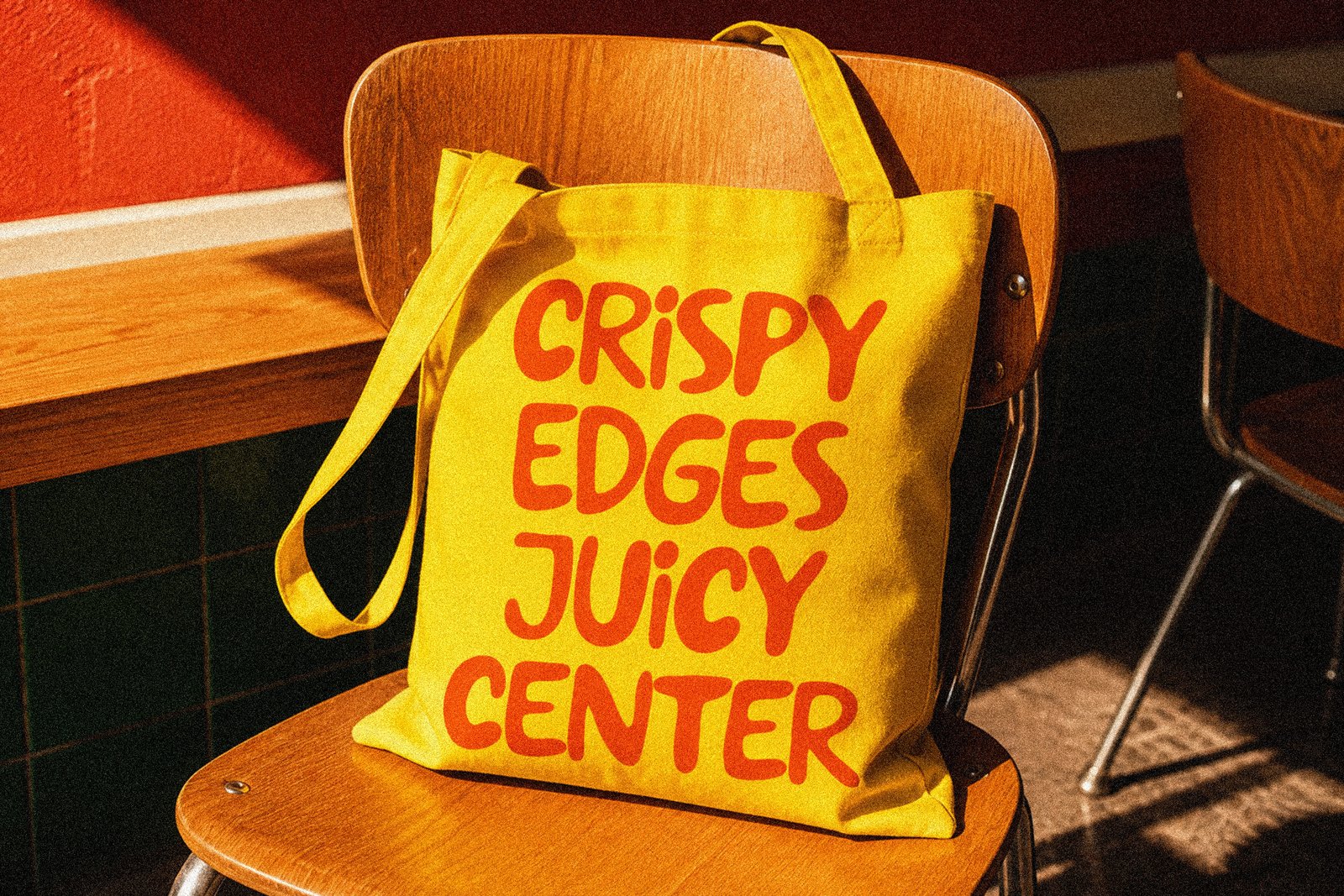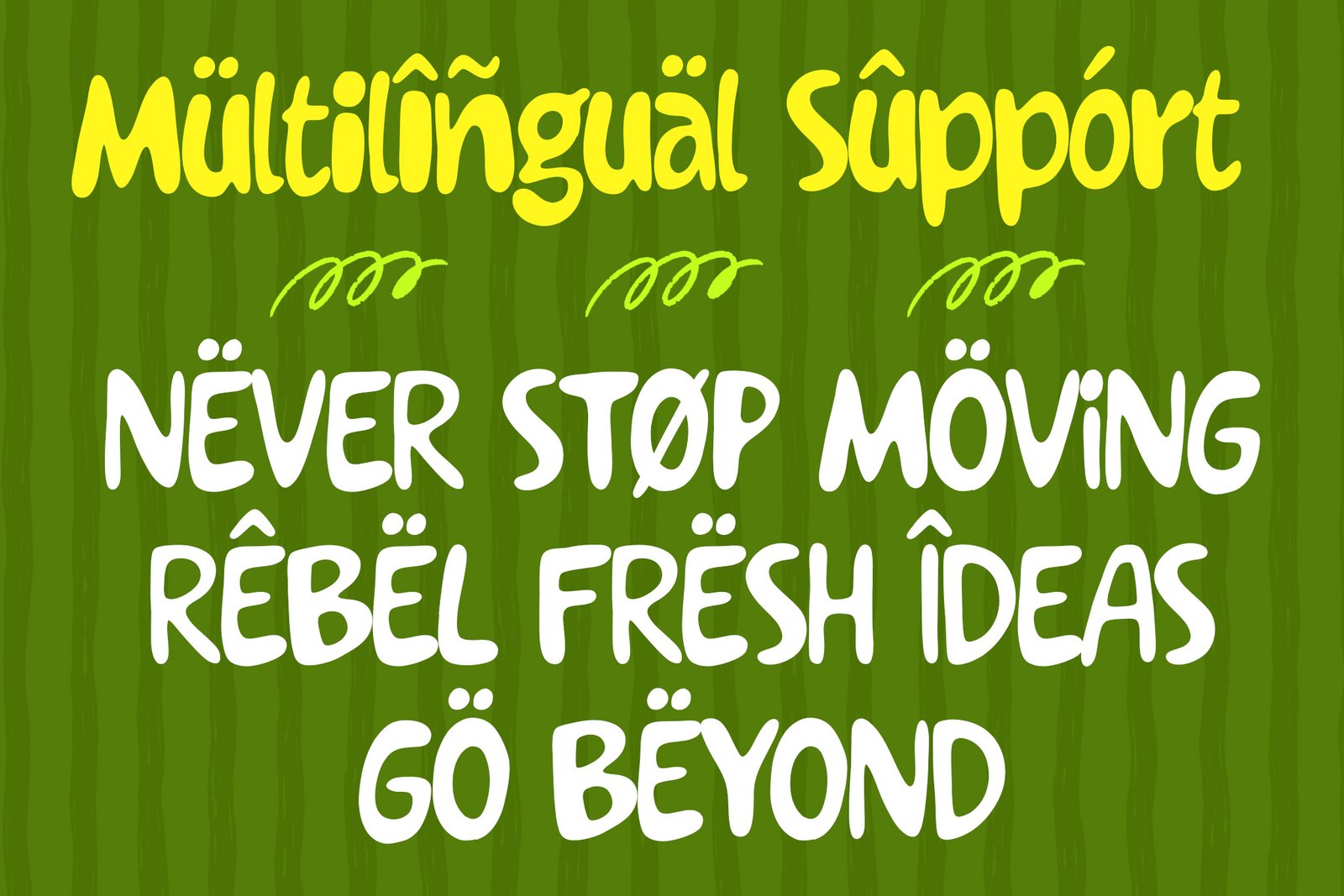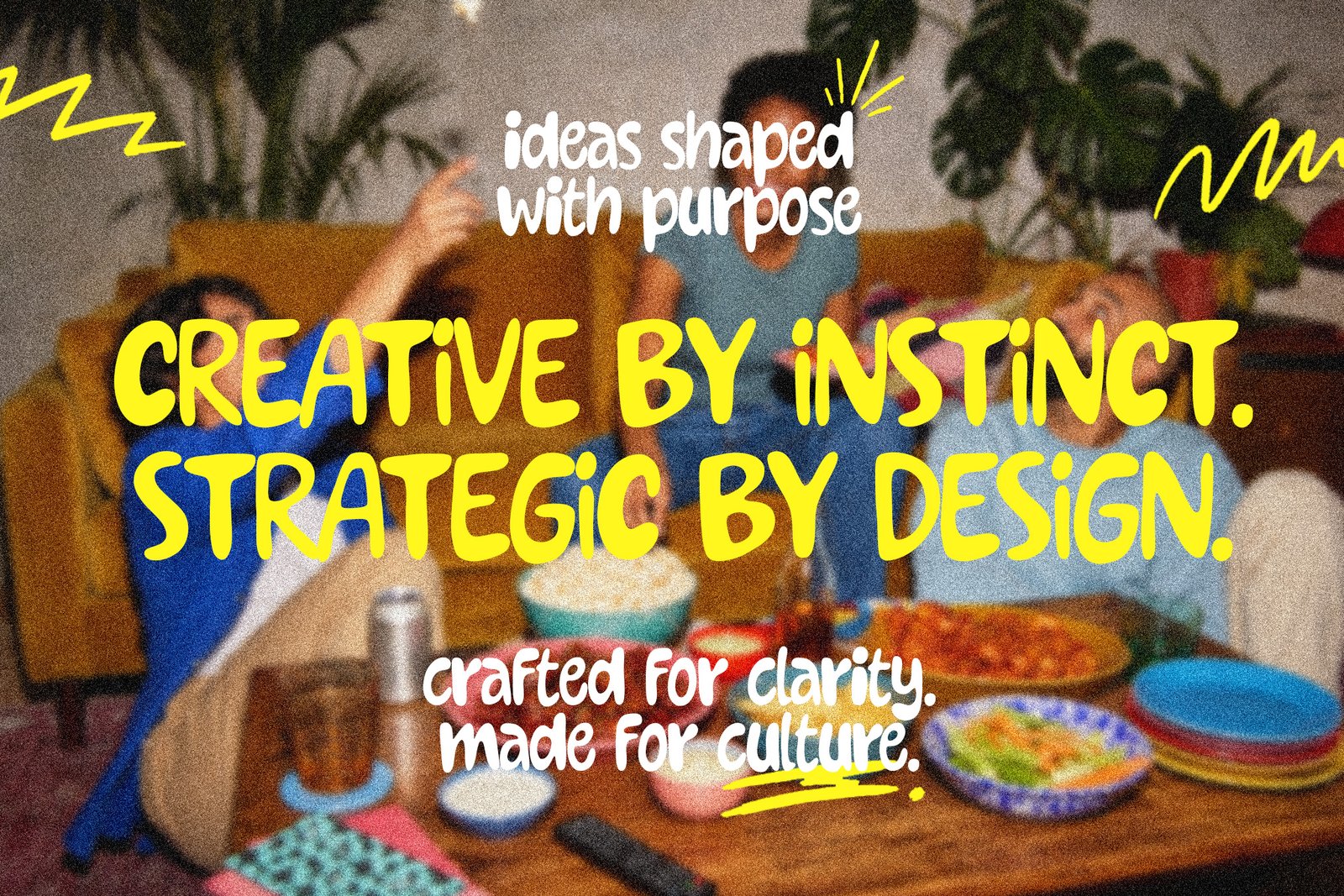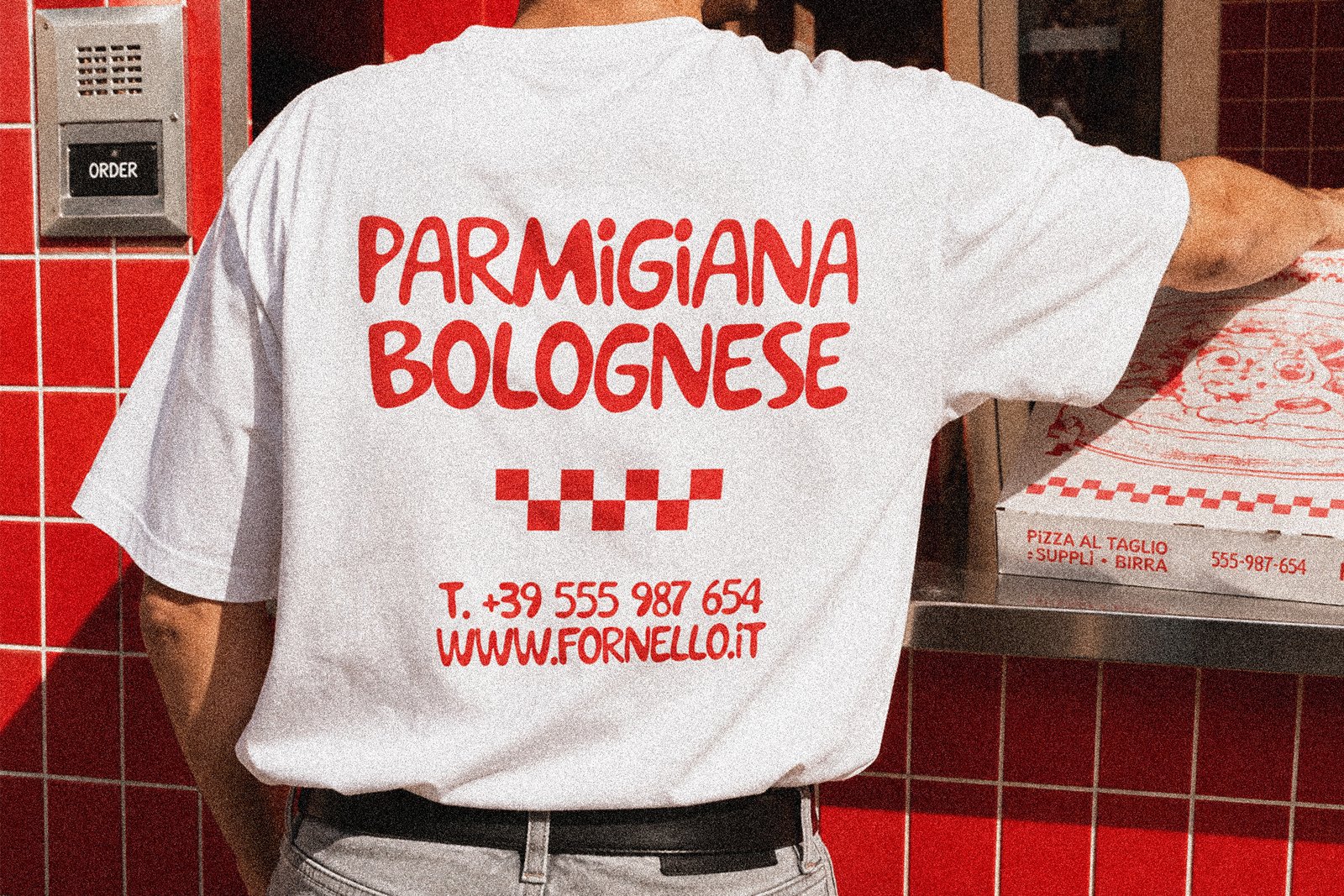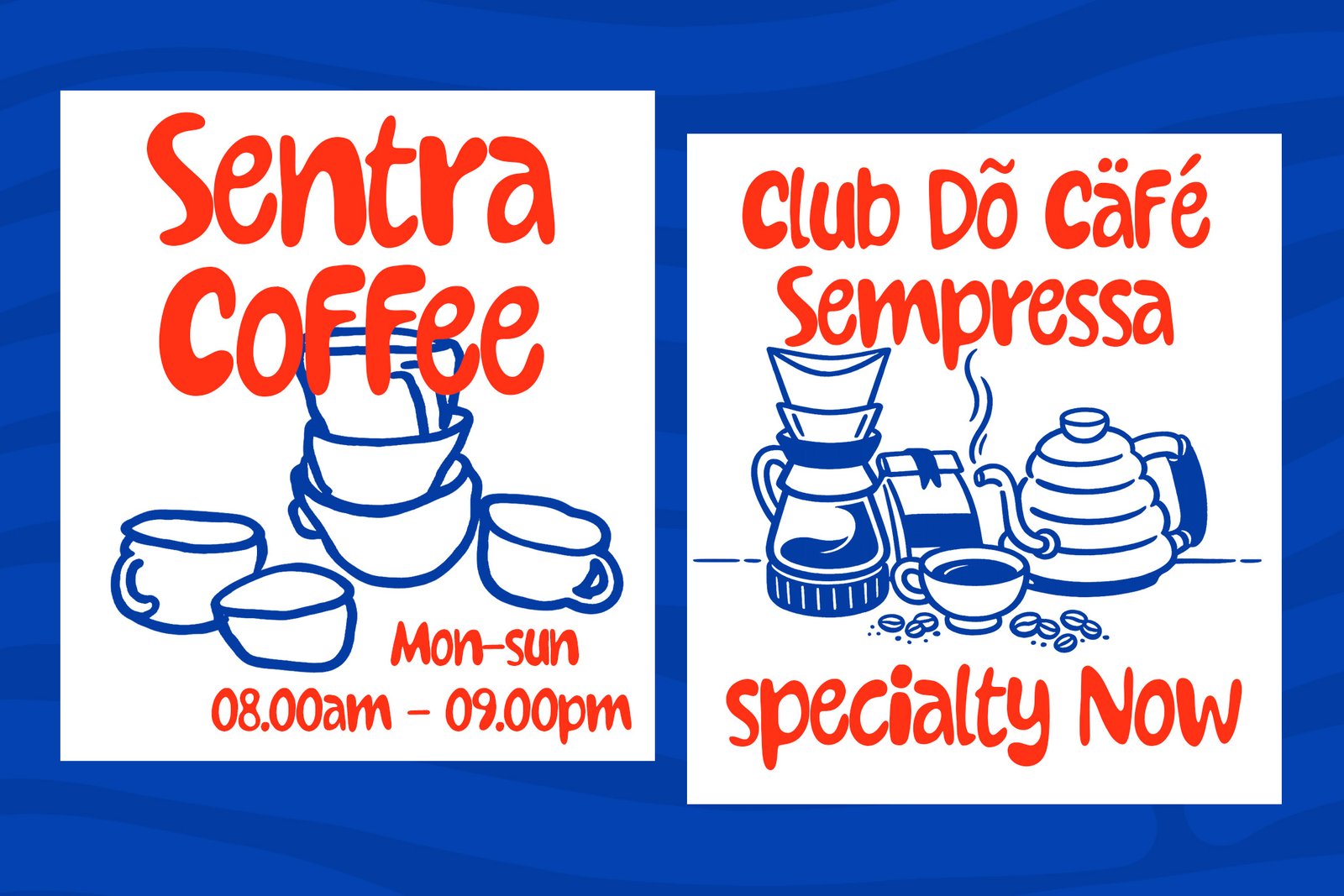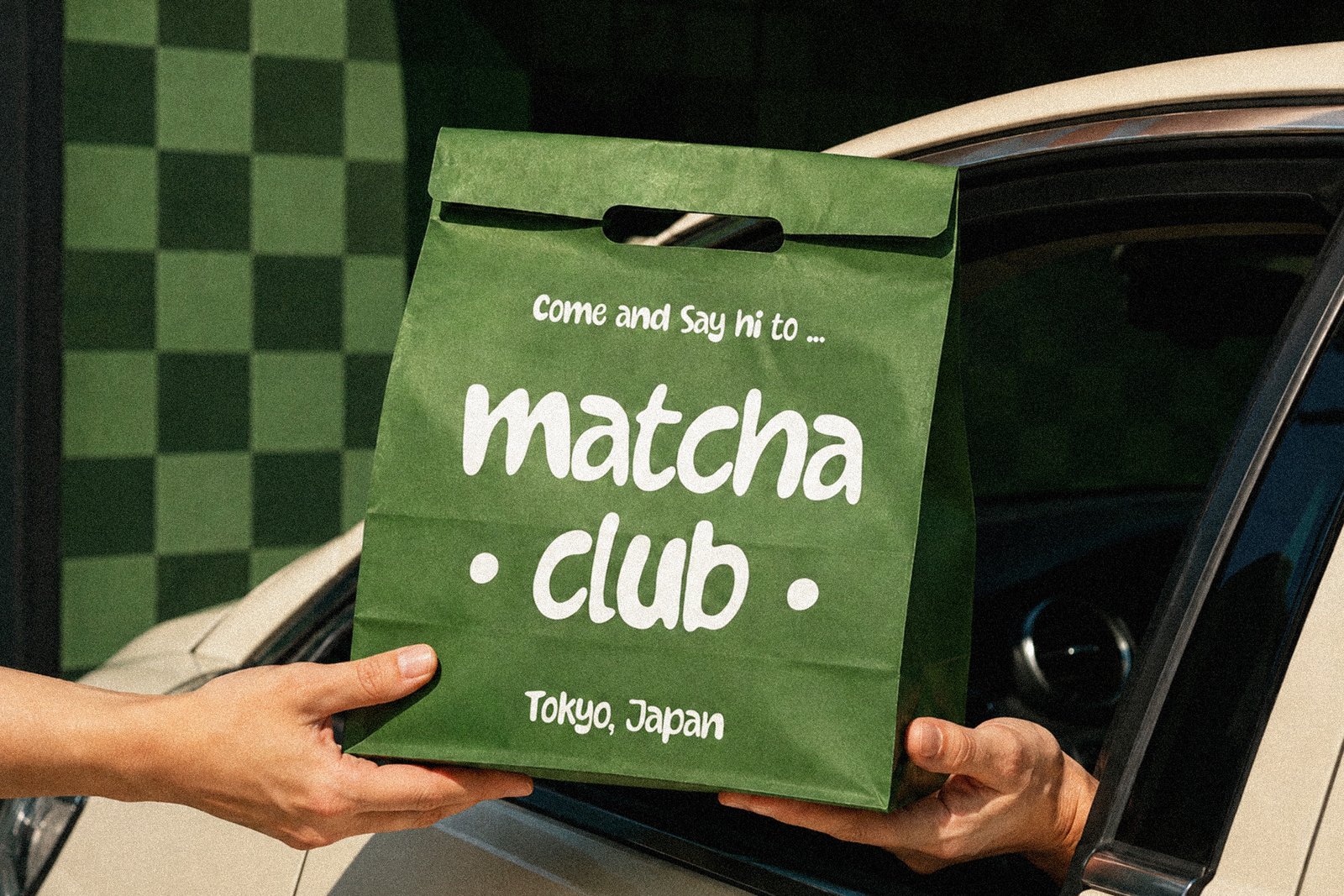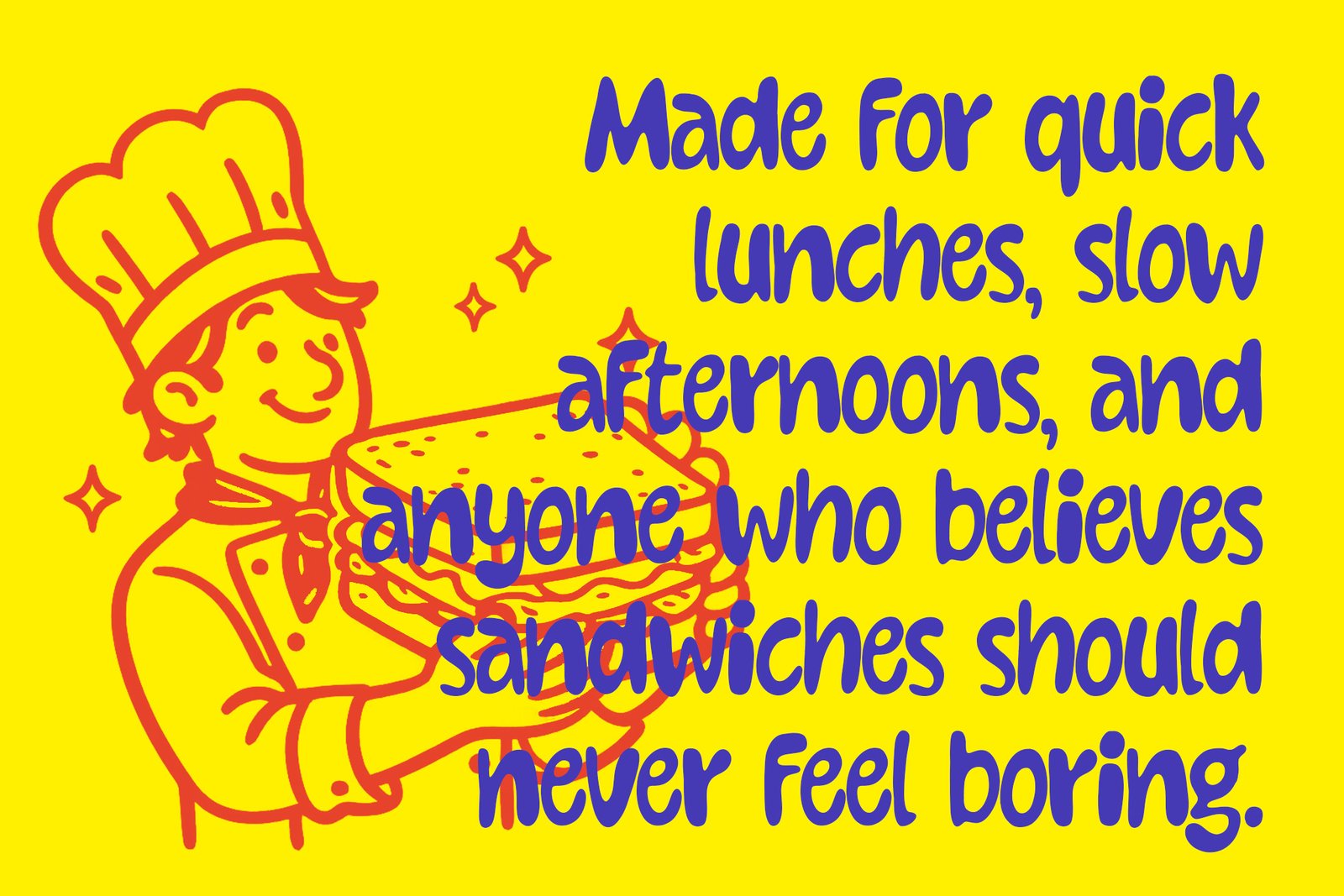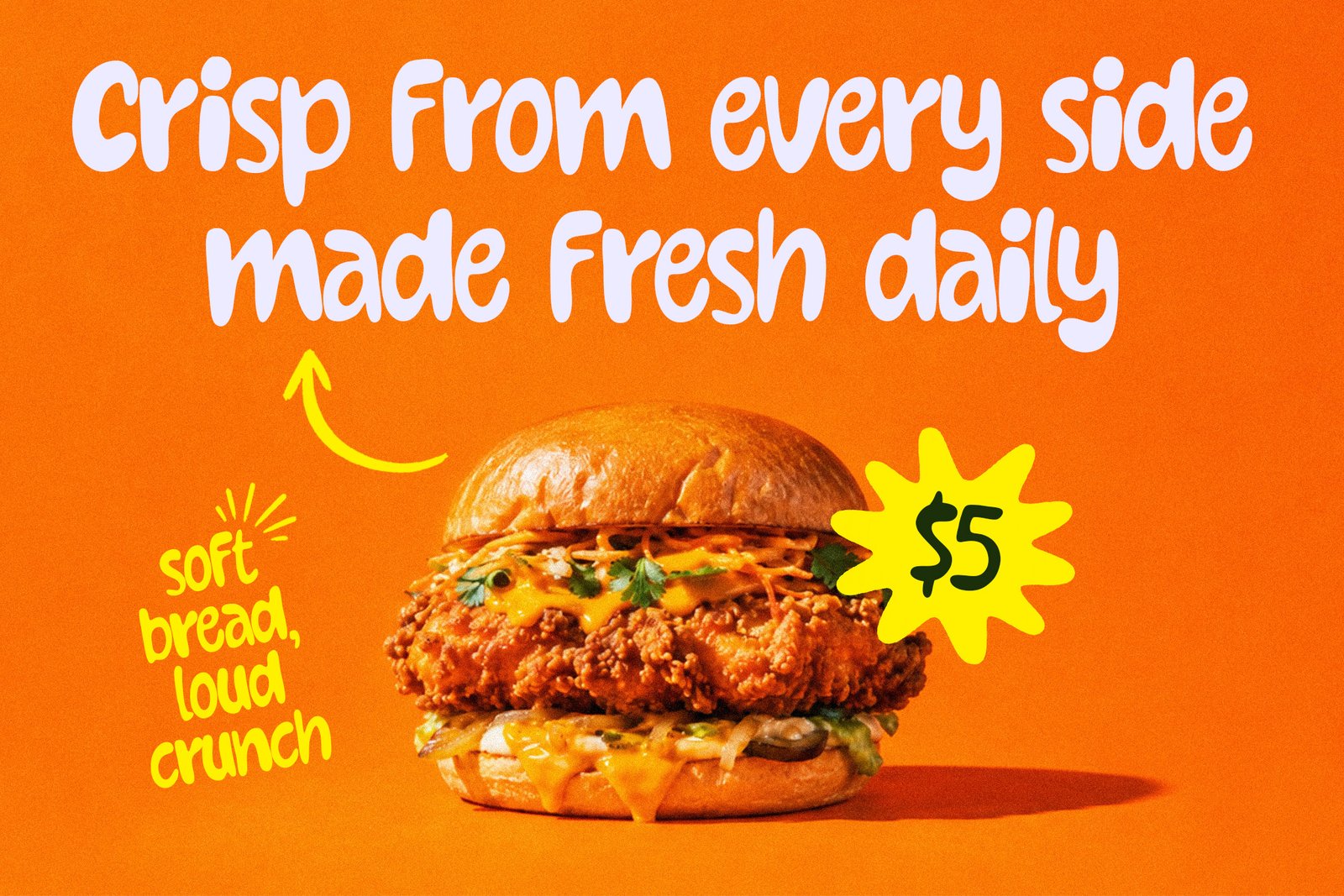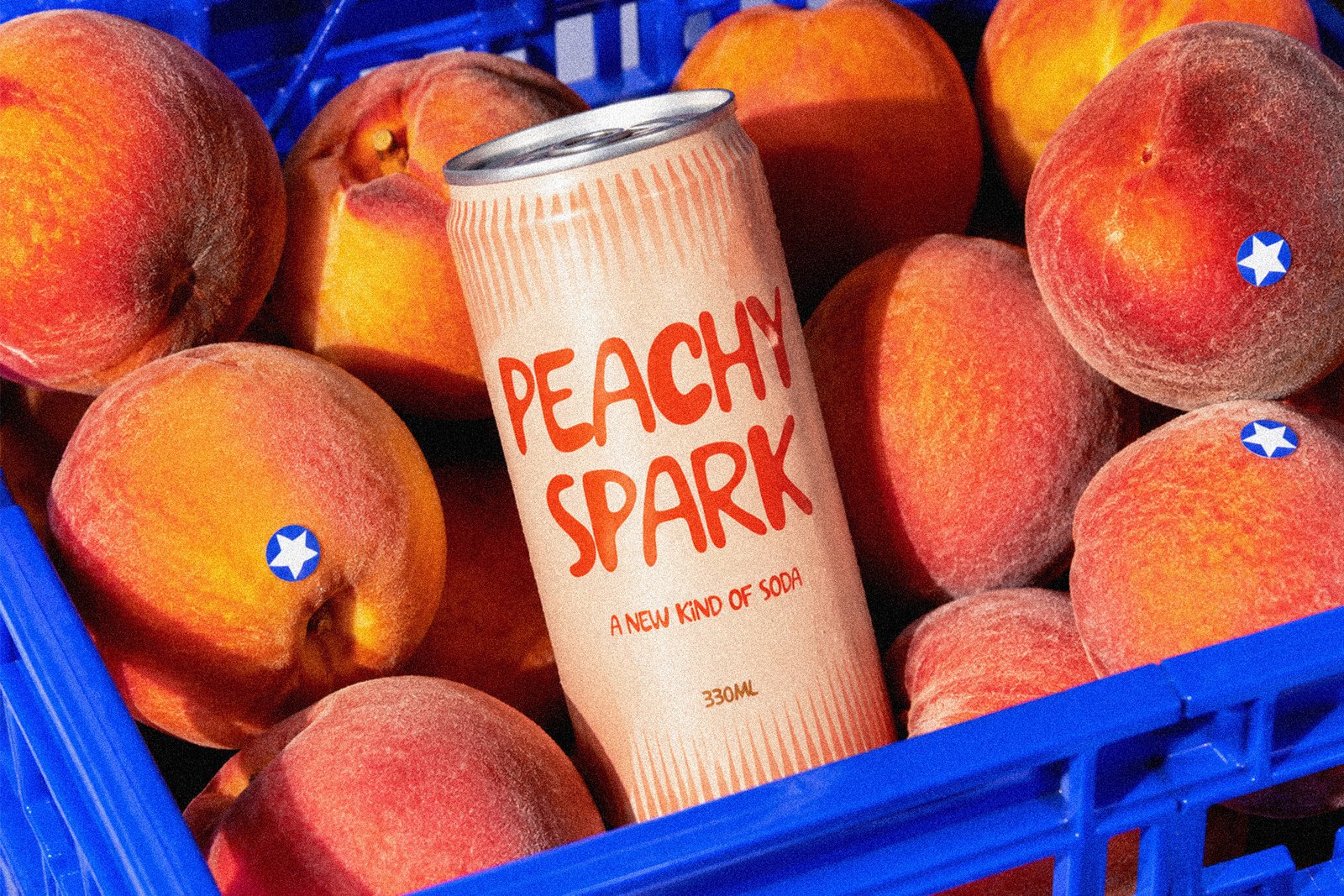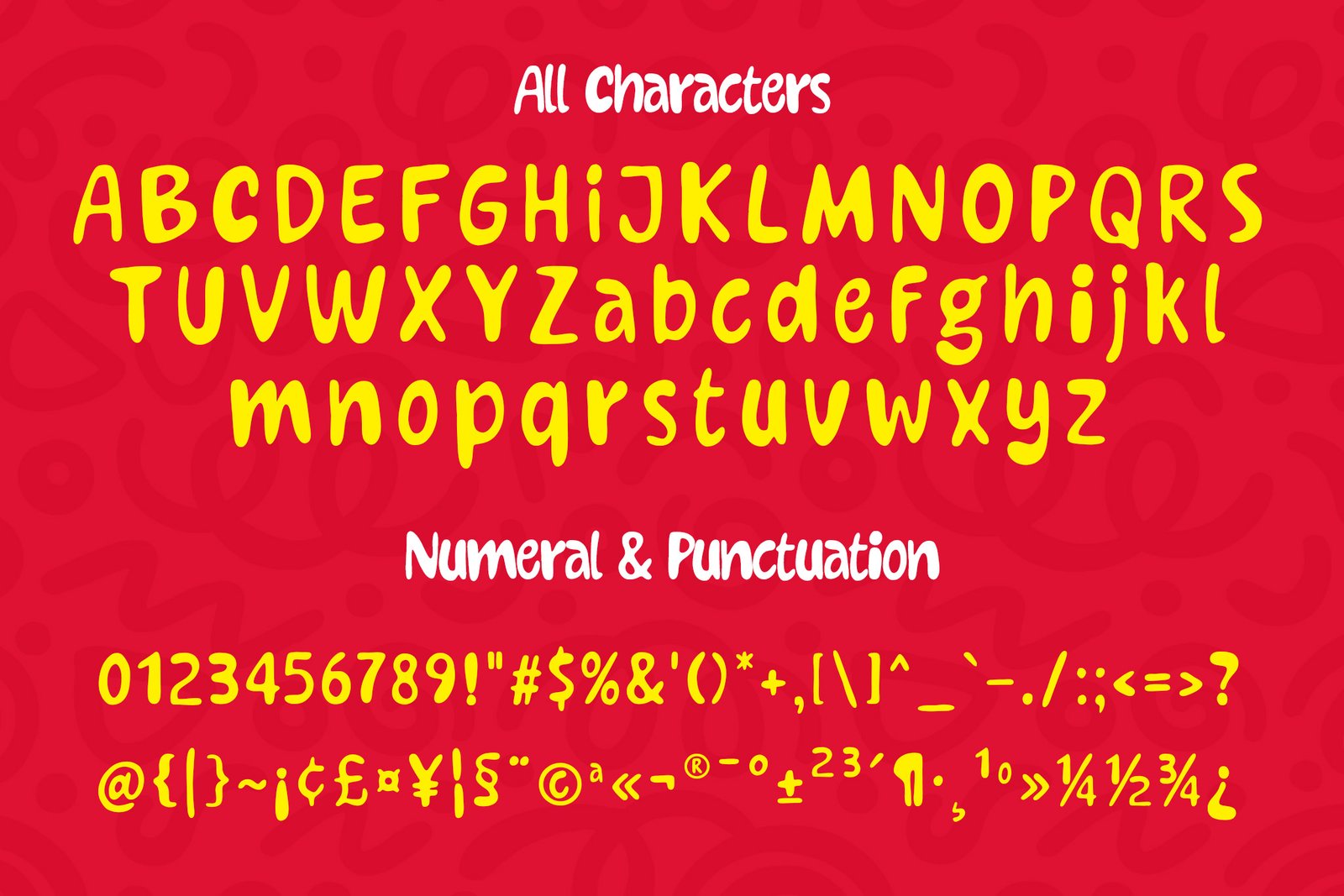
Introducing Jellymo – Playful Chunky Display Font
Jellymo is a chunky hand-drawn display font with rounded strokes, soft terminals, and an irregular rhythm that gives the letters a casual, playful feel.